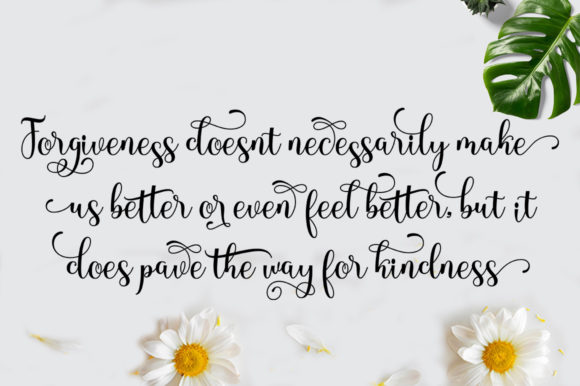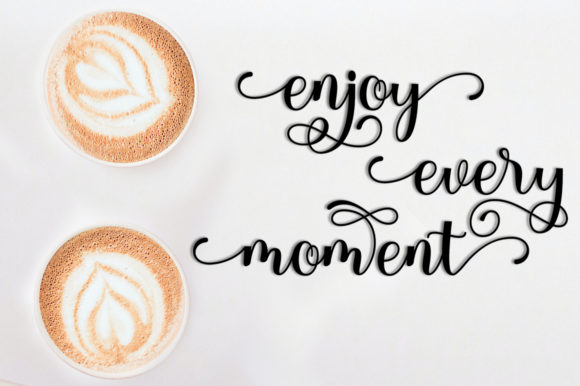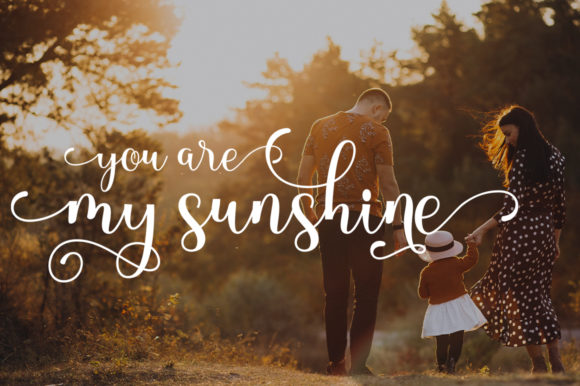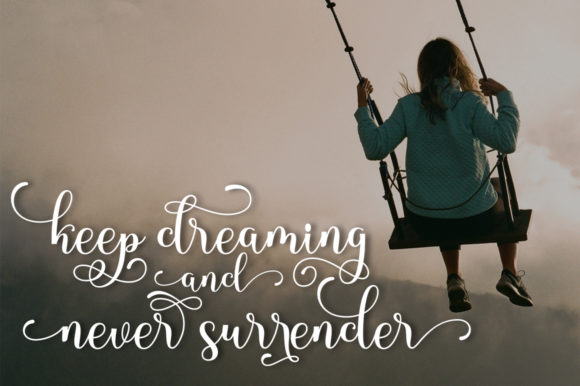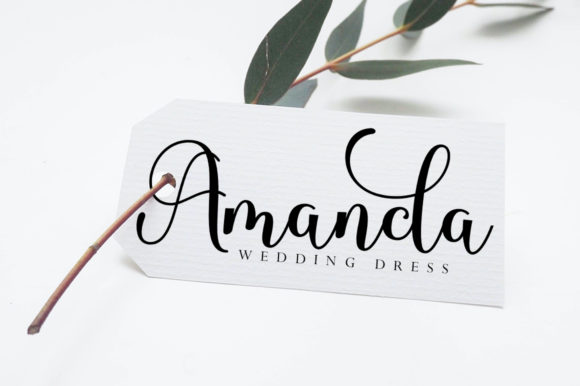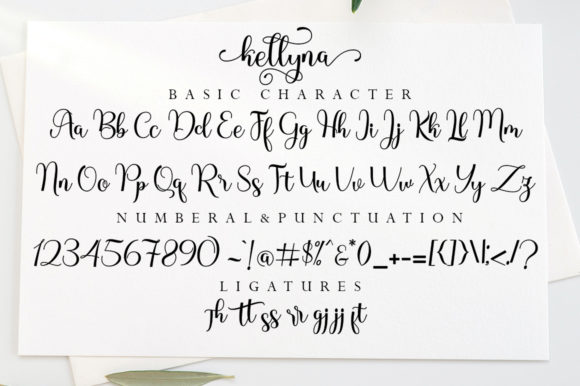
Introduction to Kellyna Font
Have you ever found yourself scribbling down a brilliant idea on a piece of paper, only to realize that it’s lost in a sea of illegible handwriting? That’s where the Kellyna Font comes in – a beautiful, elegant, and flowing handwritten font that brings your creative ideas to life. With its well-balanced characters and gorgeous glyphs, this font is the perfect addition to any design project.
Kellyna Font
- High-quality design resource ideal for creative projects, offering a unique and elegant aesthetic.
Honest Review: Kellyna Font
I recently stumbled upon the Kellyna Font, and I must say it’s a fantastic addition to my design resource library. The free download was a pleasant surprise, and I was eager to see how it would perform in my creative project.
- High-quality typography: The Kellyna Font boasts beautiful, elegant lines and a professional look.
However, there are a few limitations to consider.
- Limited character set: The font only includes uppercase and lowercase letters, with no additional characters or symbols.
- No bold or italic variations: While the regular font is beautiful, I would have liked to see more variations to add depth to my design.
Overall, I’m impressed with the Kellyna Font. Its high-quality typography and transparent background make it a valuable resource for any designer. While it may have some limitations, I believe it’s worth considering for your next creative project.
Common Use Cases for Kellyna Font
The Kellyna Font is ideal for:
- Personal projects and creative pursuits